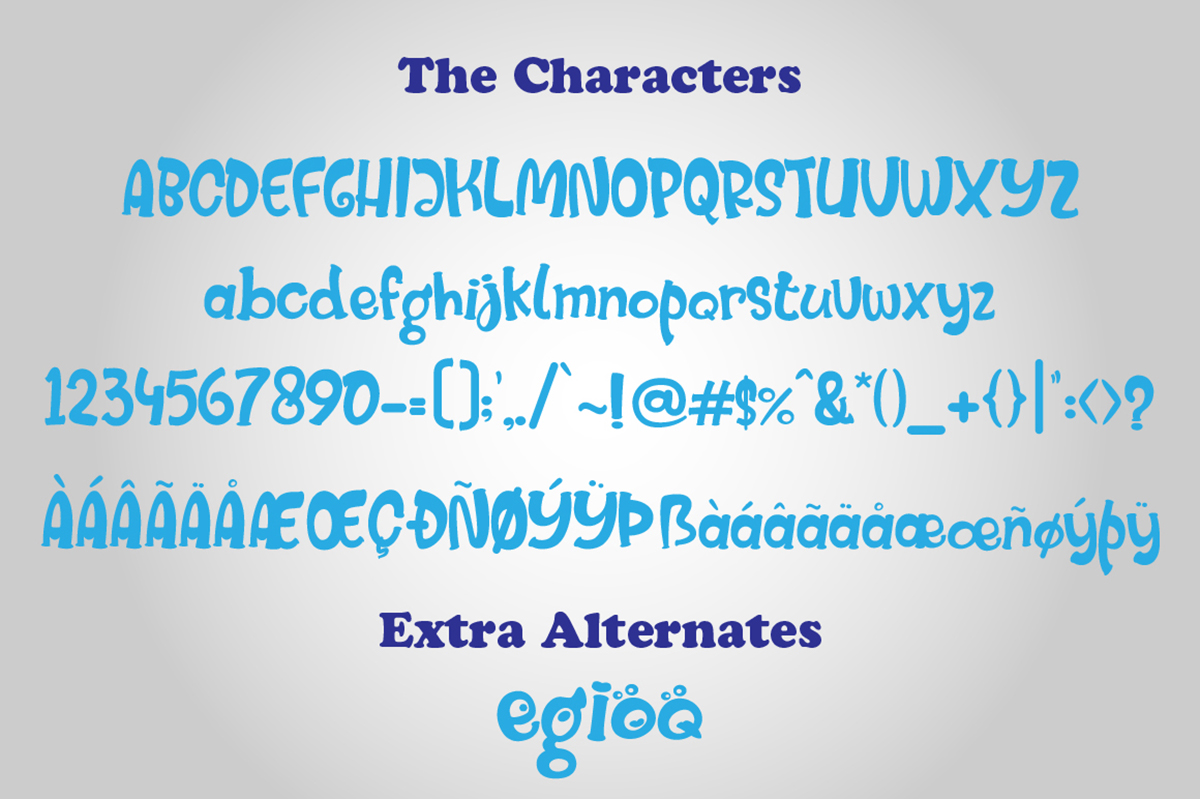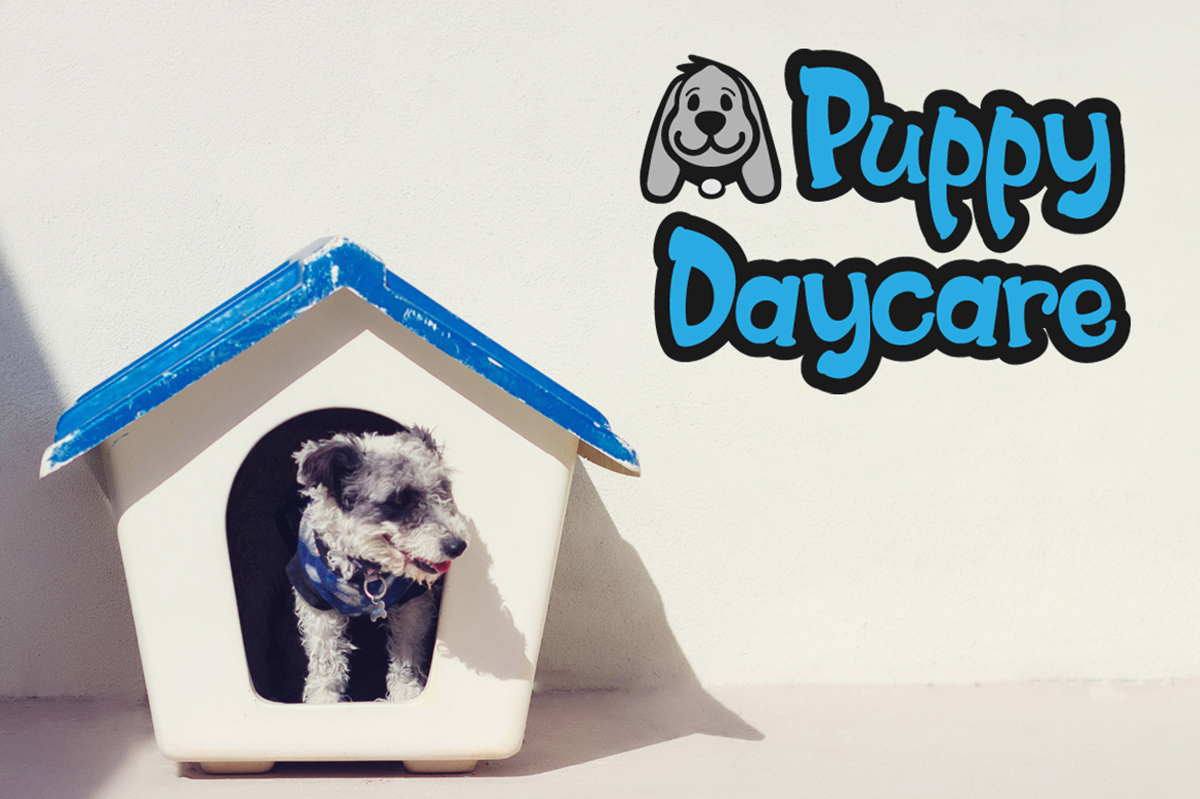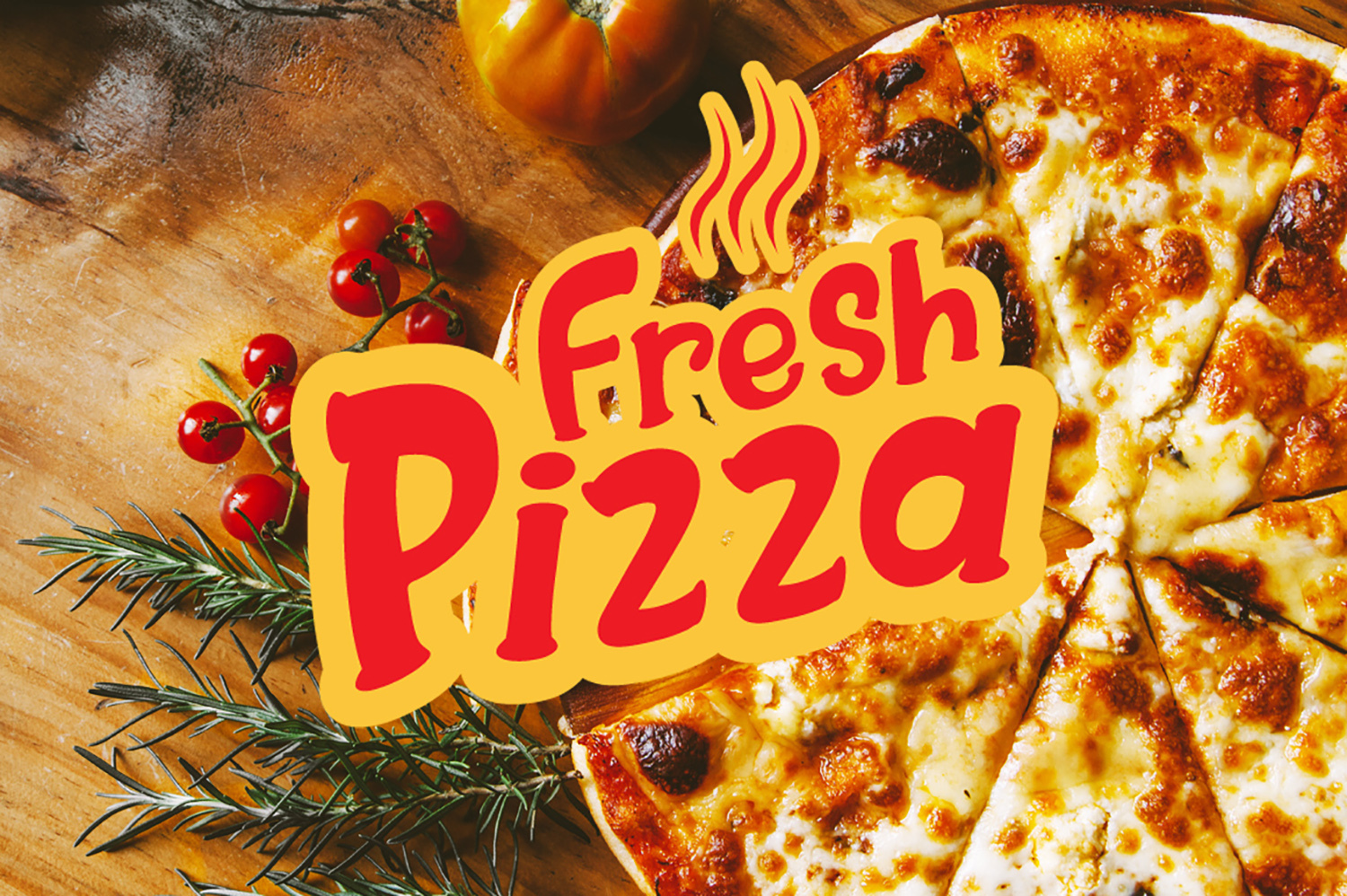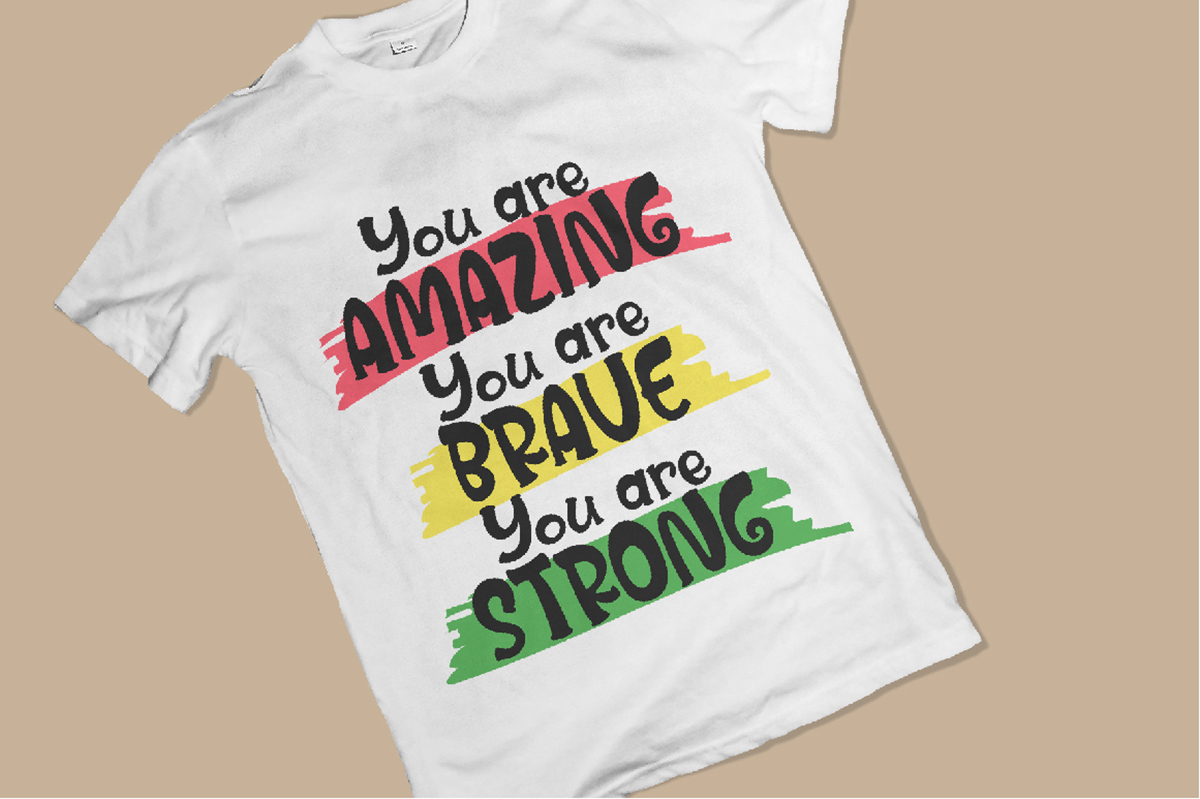
Mister Froggie Free Font
Mister Froggie Free Font is a playful font with the extruded font. This font will be suitable for logo, branding projects, product packaging, quotes, book covers, greeting card, and all your other lovely projects. Mister Froggie comes with playful style and combined with extruded font, It contains a full set of lower & uppercase letters, a large range of punctuation, numerals, many cute alternates. This free typeface was designed by the talented Din Studio. If you like it don’t forget to check out the full version.